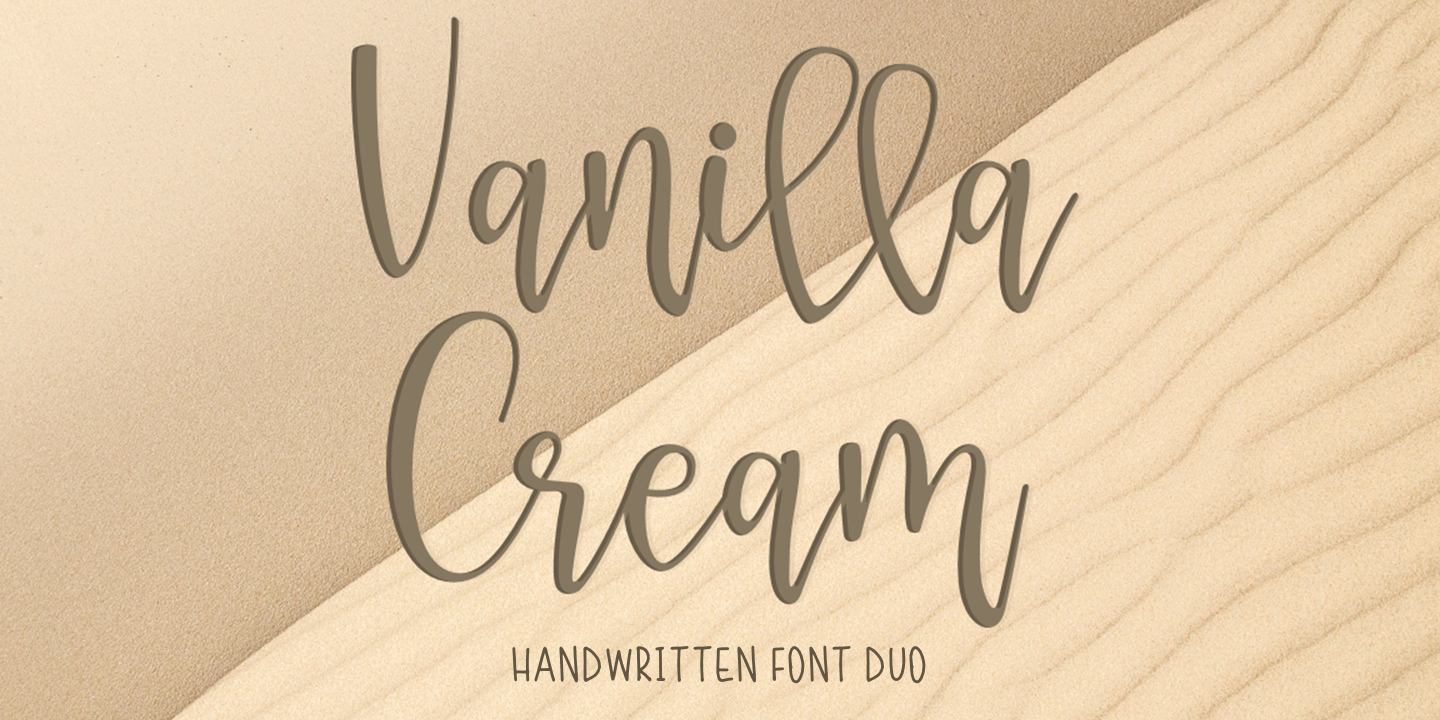
Vanilla Cream Font Free Download presents designers with a delicate typeface that embodies sweetness and luxurious comfort with creamy sophistication. However, for commercial use, you must purchase this font. You can download it for free for testing purposes only.
Vanilla Cream Font excels in indulgent design applications including artisan bakery branding, premium dessert packaging, luxury ice cream parlor signage, elegant confectionery labels, gourmet café materials, sweet treat advertisements, boutique patisserie communications, creamy cosmetics branding, comfort food restaurants, and indulgent lifestyle campaigns. This delectable typeface brings sugary elegance to comfort-focused design projects.
What makes Vanilla Cream Font truly exciting is its perfect capture of creamy smoothness with soft letterforms that evoke the luxurious texture and warm comfort of vanilla-infused delicacies. The font features gentle curves and flowing characters with creamy consistency that create feelings of warmth, comfort, and indulgent satisfaction. Its sweet personality and comforting appeal make it ideal for brands celebrating culinary pleasure, comfort experiences, and audiences who appreciate life's sweet moments, artisanal quality, and the simple luxury of perfectly crafted comfort foods.
The Vanilla Cream Font family typically includes multiple weights such as Light, Regular, and Medium with potential script variations that enhance its creamy character. These smooth options provide designers with complete comfort styling while maintaining the font's distinctive sweet elegance and indulgent presentation across various culinary applications and comfort contexts.
Whether you're developing artisanal food branding, creating comfort-focused campaigns, or designing indulgent marketing materials, Vanilla Cream Font Free Download delivers the sweet authority and creamy sophistication that comfort food projects require. Its exceptional warmth and indulgent appeal make it invaluable for designers working with bakeries, dessert brands, and comfort-focused businesses requiring typography that celebrates sweet pleasure, artisanal craftsmanship, and the timeless appeal of creamy comfort that brings joy, satisfaction, and delicious moments of pure indulgence to everyday life.